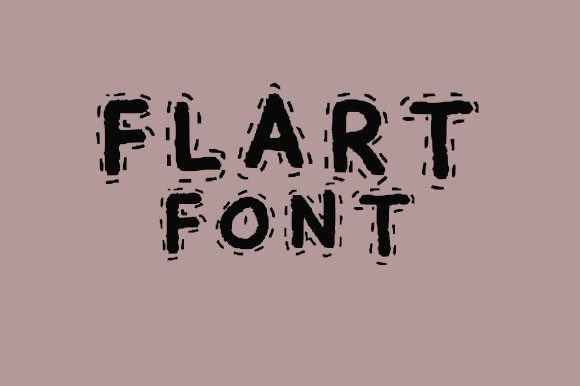
Flart: A Playful Handwritten Display Font for Modern Creativity
In today’s fast-paced digital world, where visual identity plays a crucial role in brand recognition and user engagement, the right typography can make all the difference. One font that has been gaining attention among designers, marketers, and content creators is Flart. With its unique handwritten style and inherently friendly aesthetic, Flart brings a sense of warmth and personality to any project it graces. Whether you're crafting social media posts, designing marketing collateral, or developing a personal blog, this playful display font adds an unexpected yet welcome charm.
What Is Flart?
Flart is a handwritten display font known for its cursive-like strokes and whimsical character design. Unlike standard sans-serif or serif fonts used for body text, Flart is specifically crafted for headlines, logos, and other prominent visual elements where creativity takes center stage. Its organic look mimics natural handwriting, making it feel more approachable and expressive than traditional typefaces.
Designed with both digital and print applications in mind, Flart is versatile enough to work across various platforms while maintaining its distinctive flair. The font's open letterforms and fluid curves allow for excellent legibility at larger sizes, which is essential for display use. This makes it ideal for branding projects, invitations, packaging designs, and even web interfaces where a touch of human expression is desired.
Why Flart Fits Into Creative and Business Trends
The rise of human-centric design in branding and marketing has led professionals to seek out fonts that reflect authenticity and emotion. Flart aligns perfectly with this trend by offering a personal, almost conversational tone through its script style. As consumers increasingly gravitate toward brands that feel genuine and relatable, using a font like Flart can help create that emotional connection.
Moreover, there’s a growing movement in the creative industry toward customization and individuality. Generic templates and stock fonts are no longer sufficient to stand out in a crowded market. Instead, businesses and independent creators are opting for fonts that add a signature style to their work. Flart provides just that — a unique typographic voice that can elevate the visual appeal of your projects without feeling overdone or gimmicky.
A Shift Toward Expressive Typography
Modern audiences have evolved beyond the rigid formalities of the past. They now appreciate content that feels alive and authentic. This shift is evident in the popularity of hand-drawn illustrations, personalized calligraphy, and expressive typography. Flart taps into this cultural evolution by giving designers a tool that bridges the gap between professional polish and personal touch.
Consider how major brands are incorporating handwritten elements into their logos and promotional materials. Think of Starbucks’ iconic green logo, Apple’s sleek but warm product titles, or the playful scripts used in children's book covers. These examples highlight how handwritten fonts can evoke specific moods and enhance brand storytelling. Flart, with its cute and friendly appearance, is well-suited to similar uses.
Why People Are Paying Attention to Flart
Flart has captured the interest of many in the design community due to its ability to blend professionalism with playfulness. It’s not just another decorative font; it's a thoughtful choice that resonates with modern sensibilities. Designers and entrepreneurs alike are recognizing that the right font can influence how users perceive a brand, product, or message.
One reason for its rising popularity is the increasing demand for multi-platform consistency. Flart works seamlessly on websites, mobile apps, and printed materials. Its adaptability ensures that whether viewed on a smartphone screen or a billboard, the font maintains its character and clarity. This reliability is key for businesses looking to maintain a cohesive visual language across all touchpoints.
Changing Preferences in Branding and Communication
Today’s consumers expect more from the brands they interact with. They want experiences that feel tailored, not templated. In response, companies are rethinking their visual strategies to include more expressive and emotionally engaging elements. Flart supports this effort by adding a layer of personality to communication assets such as:
- Social Media Graphics: Capturing attention with eye-catching headlines and captions.
- Product Packaging: Creating a memorable and inviting first impression.
- Email Marketing: Enhancing subject lines and calls-to-action with a friendlier tone.
- App Interfaces: Adding warmth to onboarding screens or feature highlights.
These use cases demonstrate how Flart isn’t just a stylistic choice — it's a strategic one. By choosing this font, creatives can better align with current expectations around visual storytelling and brand authenticity.
Practical Applications of Flart
To understand why Flart is being adopted so widely, let’s look at some real-world scenarios where it shines:
1. Brand Identity for Lifestyle Companies
Lifestyle brands, particularly those targeting younger demographics, often rely on a strong visual identity to convey their values. Flart’s cute and friendly nature fits well with brands focused on wellness, fashion, beauty, or home décor. For instance, a boutique selling handmade skincare products might use Flart in their logo and packaging to emphasize the personal care behind each item.
2. Social Media Content Creation
On platforms like Instagram, Pinterest, and TikTok, visual content needs to be both attractive and easy to read. Flart helps creators stand out with its bold, expressive characters while still maintaining readability. It’s especially effective when paired with minimalist layouts and high-quality imagery, creating a balanced and appealing composition.
3. Educational and Children's Products
Flart’s playful aesthetic also makes it suitable for educational tools, learning apps, and children's books. The font's soft curves and open forms can help reduce visual fatigue and make reading a more enjoyable experience. Educators and developers are using it to design interactive content that appeals to young minds and keeps them engaged.
4. Freelance Projects and Personal Brands
Freelancers and solopreneurs who offer creative services often need to showcase their unique style. Flart allows them to do just that — it becomes part of their personal brand identity. Whether it’s used in a portfolio website, business cards, or email signatures, the font adds a distinct personality that differentiates them from competitors.
How Flart Aligns with Industry Developments
Flart doesn’t exist in a vacuum. Its success is tied to broader developments in the fields of design, marketing, and technology. Here are a few ways it connects with these shifts:
- Remote Work and Digital Collaboration: As more professionals work remotely, the tools they use must adapt to digital environments. Flart enhances digital presentations, slideshows, and online portfolios with a humanized touch.
- Personalization in UX/UI Design: User experience (UX) and user interface (UI) design are moving toward more personalized interactions. Flart can be used to soften the tone of digital products, making them feel less corporate and more approachable.
- Minimalist Design Aesthetics: While minimalist design focuses on simplicity, it still requires visual interest. Flart offers that interest without overwhelming the layout, striking a perfect balance between form and function.
Embracing Emotional Design
There’s a growing emphasis on emotional design — the idea that aesthetics should elicit positive feelings from users. Flart contributes to this by infusing digital and print spaces with a sense of joy and familiarity. It’s a subtle but powerful way to influence user perception and encourage interaction.
Getting Started with Flart in Your Projects
If you’re considering integrating Flart into your next project, here are some best practices to keep in mind:
- Use Sparingly: Because it’s a display font, it’s most effective when used for headings, subheadings, or short phrases rather than long blocks of text.
- Pair Thoughtfully: Combine it with a clean, sans-serif font for body copy to maintain readability and contrast. This pairing ensures the message remains clear while the headline grabs attention.
- Test Across Devices: Ensure that Flart looks good on desktops, tablets, and smartphones. Check scalability and legibility in different sizes and resolutions.
- Match the Tone: Use it in contexts where a casual, welcoming, or artistic tone is appropriate. Avoid using it in legal documents, technical manuals, or anything requiring strict professionalism.
For example, a lifestyle blogger could use Flart in their header to give their site a cozy, personal feel. Meanwhile, a startup launching a new app might incorporate it into their promotional videos or landing page banners to add a touch of creativity and approachability.
Looking Ahead: The Future of Fonts Like Flart
As we continue to see the convergence of art and technology, the role of expressive typography will only grow. Tools like AI-driven design platforms are already allowing non-designers to experiment with fonts and layouts more easily. In this evolving landscape, fonts like Flart represent the next wave of accessible, impactful design choices.
Additionally, the ongoing push for inclusivity and diversity in design means that there’s room for more varied typographic expressions. Flart, with its soft and inviting style, supports this movement by offering a font that feels inclusive and unifying. It breaks away from the coldness of purely mechanical typefaces, reminding us that design can — and should — have heart.
Adapting to New Platforms and Uses
With the rise of video content, animated logos, and interactive web experiences, the need for dynamic fonts is increasing. Flart’s versatility positions it well for future adaptations, including potential versions optimized for motion graphics or AR/VR environments. As technology continues to evolve, so too will the ways we use fonts to tell stories and connect with audiences.
Final Thoughts
Flart is more than just a font — it's a reflection of how design is becoming more human-centered, expressive, and emotionally resonant. Its cute and friendly nature makes it a valuable asset in a designer’s toolkit, especially when aiming to connect with audiences in a meaningful way. As trends continue to favor authenticity and creativity, Flart stands out as a forward-thinking choice for anyone looking to leave a lasting visual impression.
So, if you're working on a project that demands a bit of personality, consider adding Flart to your design stack. You’ll not only meet the expectations of modern audiences but also unlock new possibilities for creative expression. Embrace the playful side of typography and discover how a single font can transform your entire visual strategy.